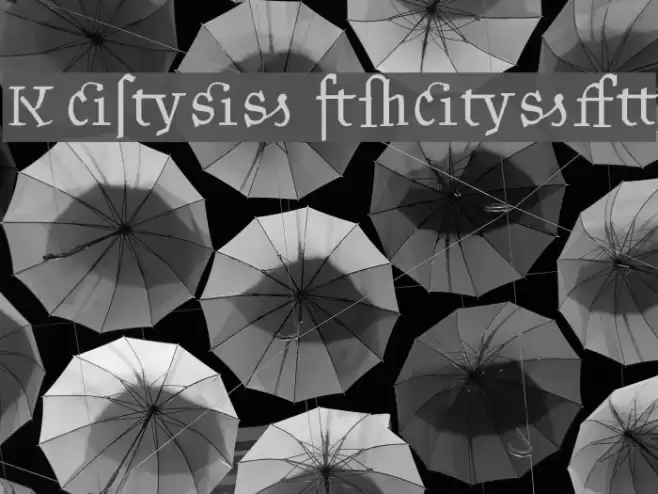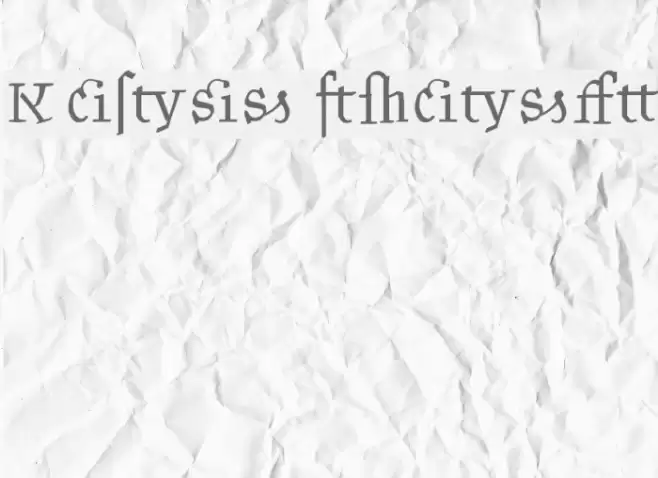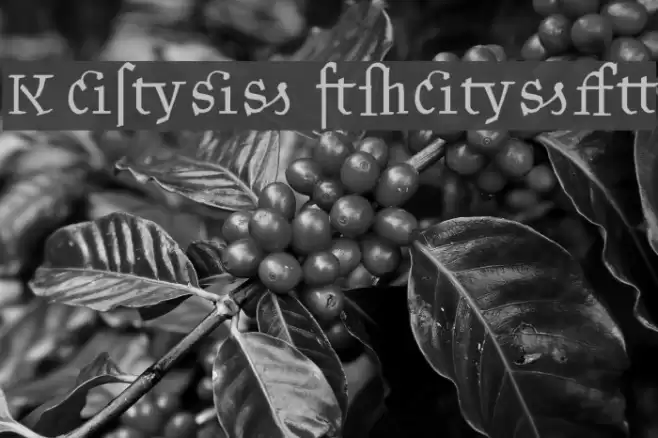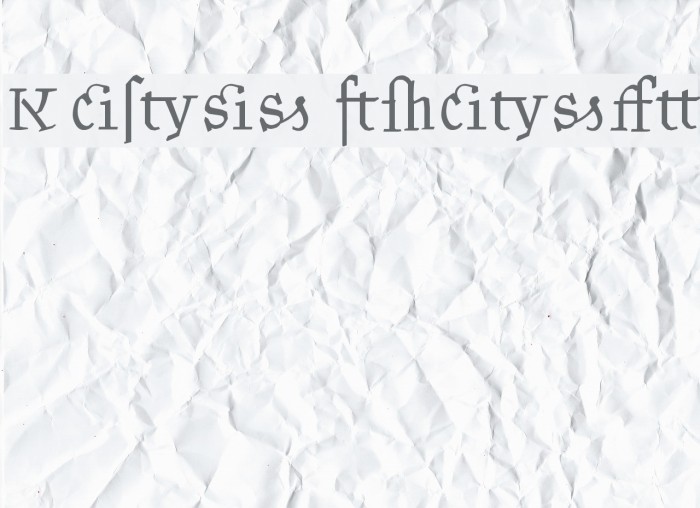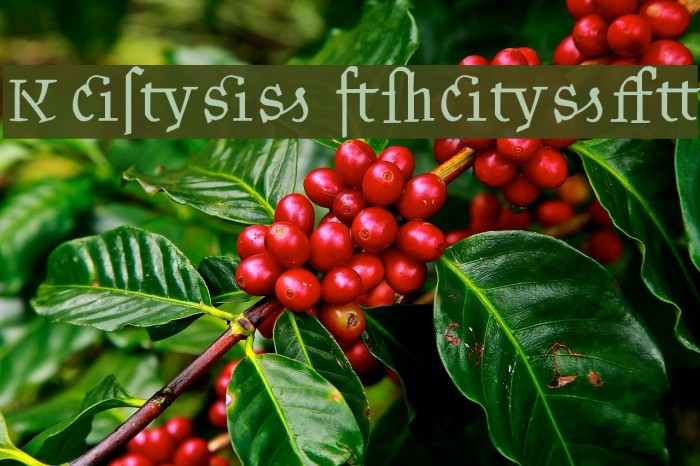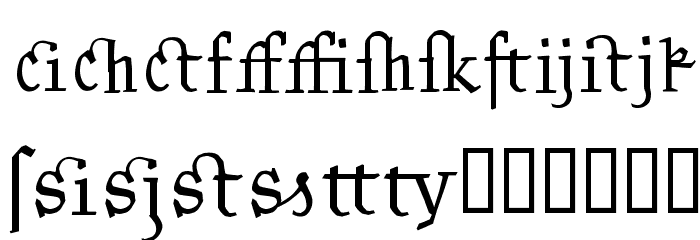
Kantor Ligatures Font
Kantor Ligatures Description
This font features a collection of intricate ligatures, showcasing a blend of classic and decorative styles. The characters are designed with a high level of detail, emphasizing the connections between letters. The strokes vary in thickness, providing a medium contrast that enhances readability while maintaining an artistic flair. The font's overall appearance is reminiscent of traditional calligraphy, with a modern twist that makes it suitable for both historical and contemporary projects. The unique ligatures add a touch of elegance and sophistication, making it ideal for creative and formal applications.
A decorative font with intricate ligatures and medium contrast, blending classic and modern styles from Valentine fonts.
- Proposed Projects: Ideal for wedding invitations, historical documents, branding, and artistic projects requiring a touch of elegance.
- Overall Style: Classic, Decorative
- Use Case: Logos, Invitations, Artistic projects